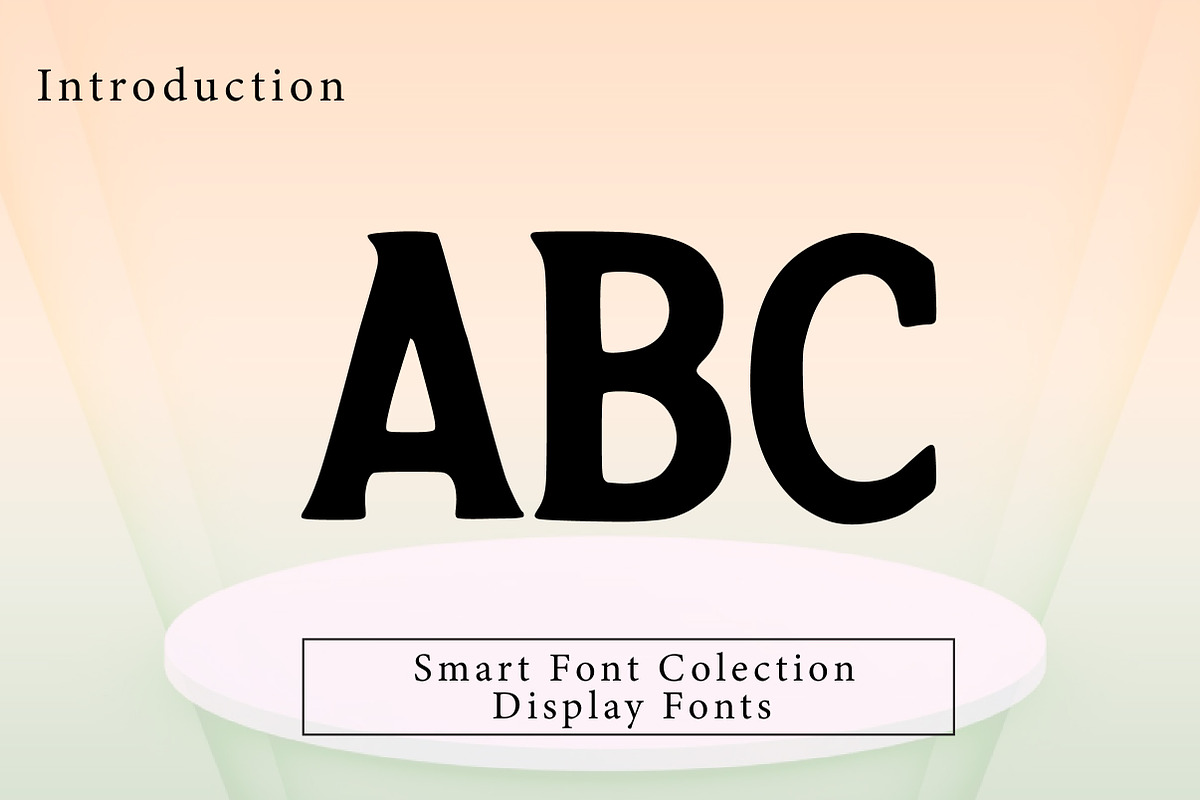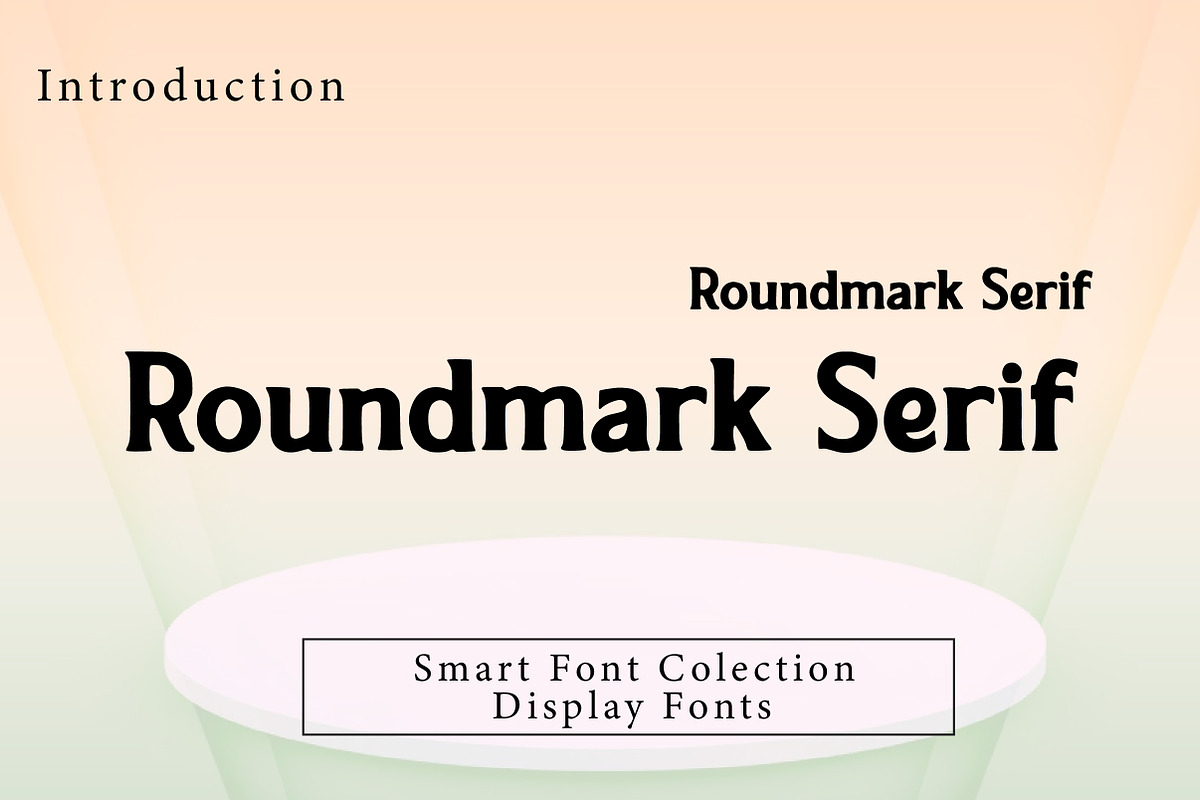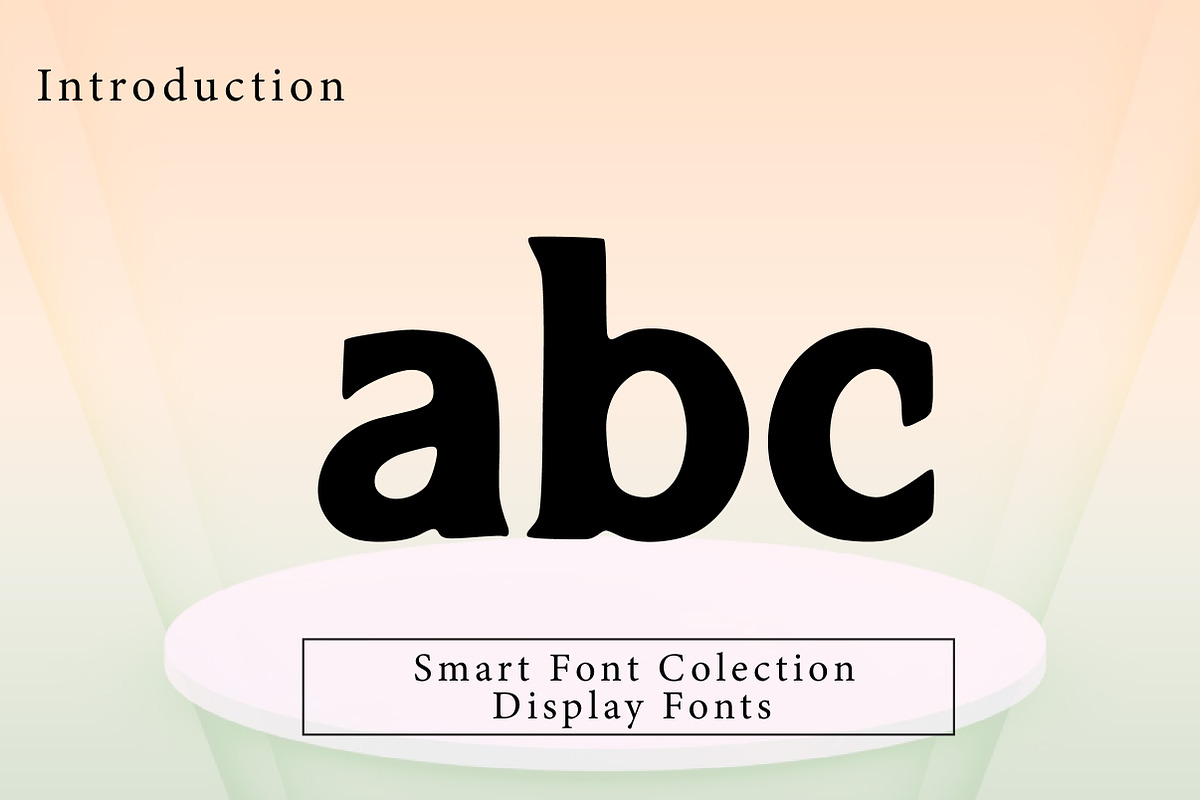
Roundmark Serif
Roundmark Serif is a modern serif typeface characterized by bold forms and softly rounded edges. It combines the strength of classic serif typography with a friendly, contemporary feel created by smooth curves and balanced proportions. The font delivers excellent readability while maintaining a distinctive personality, making it ideal for branding, headlines, logos, editorial design, posters, packaging, and modern print projects. Roundmark Serif is designed to feel confident, approachable, and visually memorable.